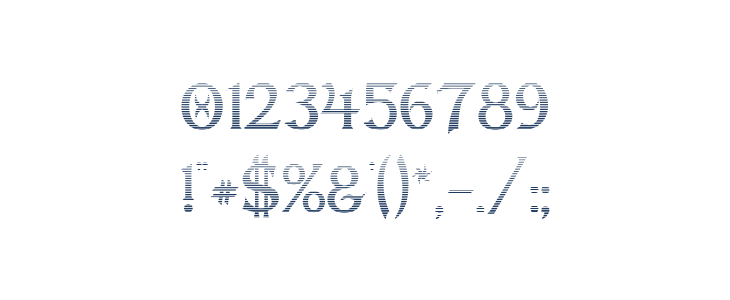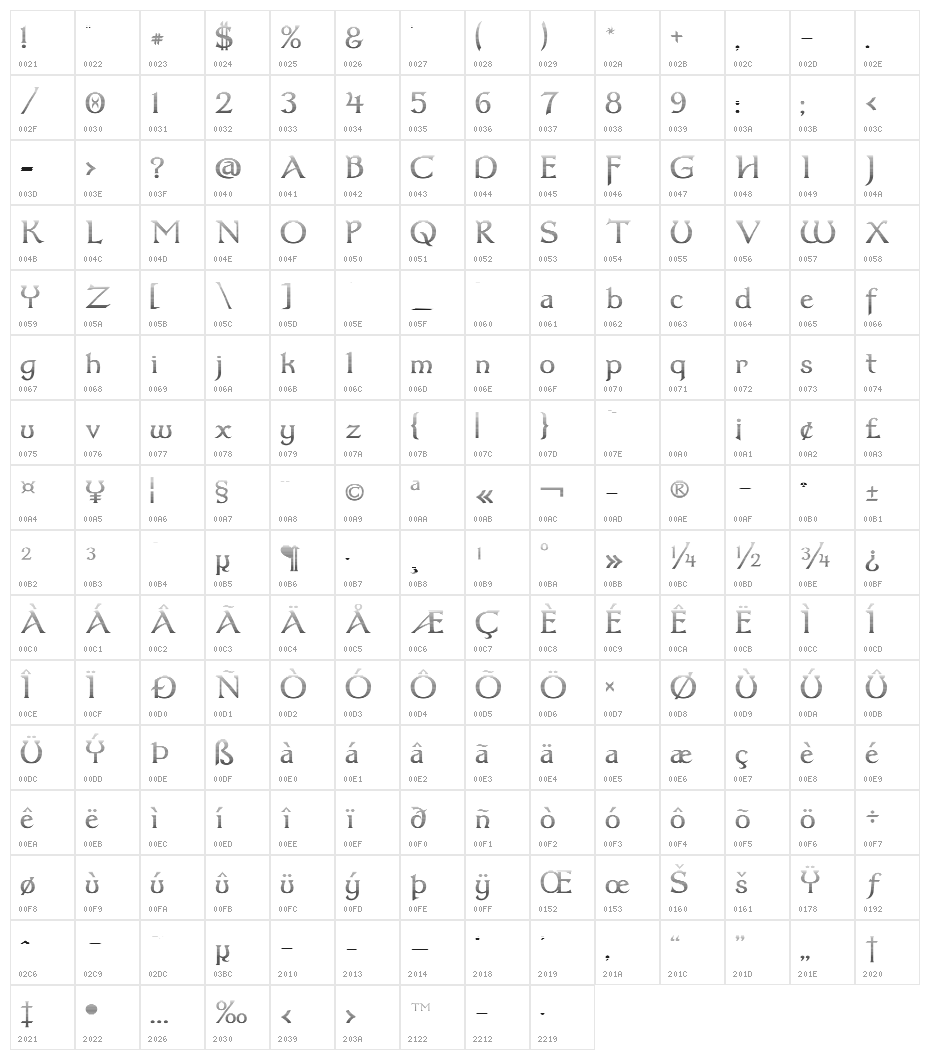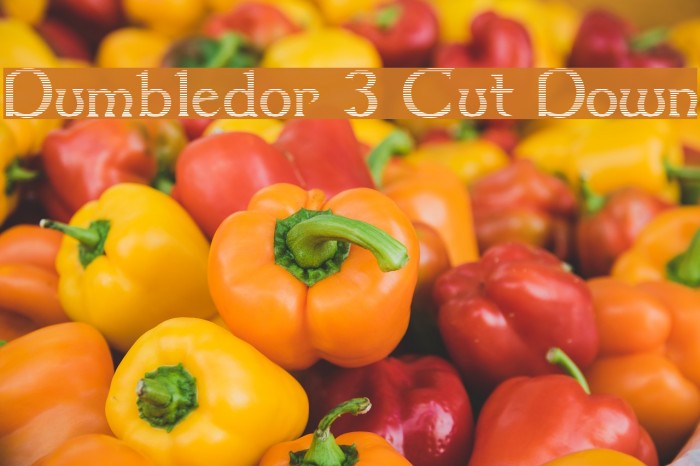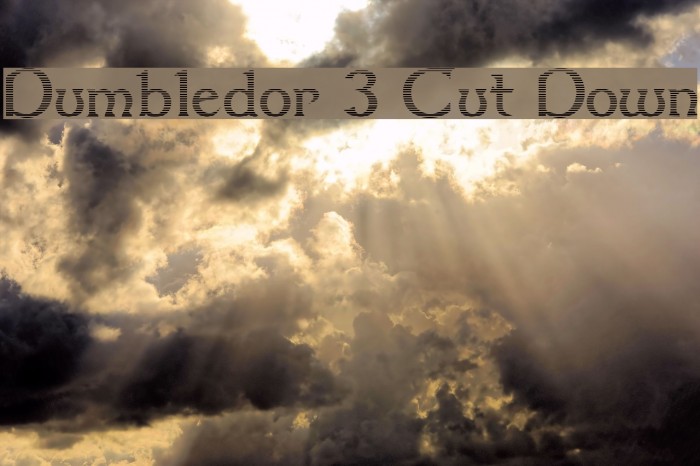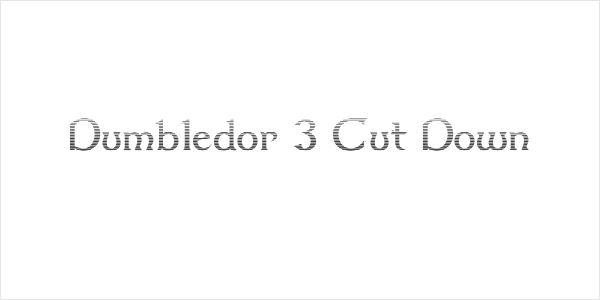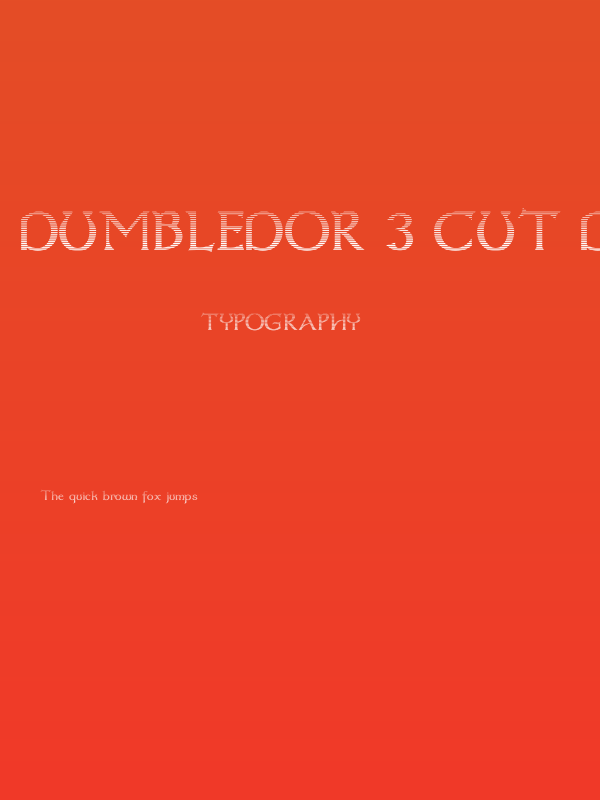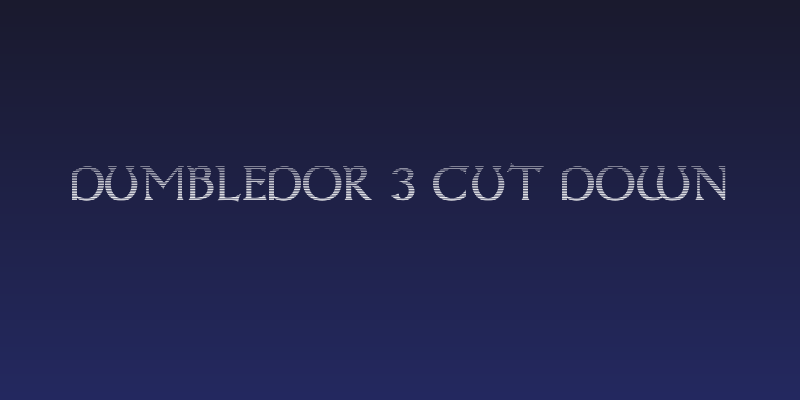
Dumbledor 3 Cut Down Font
Dumbledor 3 Cut Down Description
This font features a distinctive striped pattern across each character, giving it a unique and modern appearance. The uppercase and lowercase letters maintain a consistent style, with sharp serifs and a slightly condensed form. The numerals and special characters follow the same design, ensuring uniformity throughout. The horizontal lines within each character add a textured effect, making it stand out in display settings. This font combines traditional serif elements with a contemporary twist, making it versatile for various design applications.